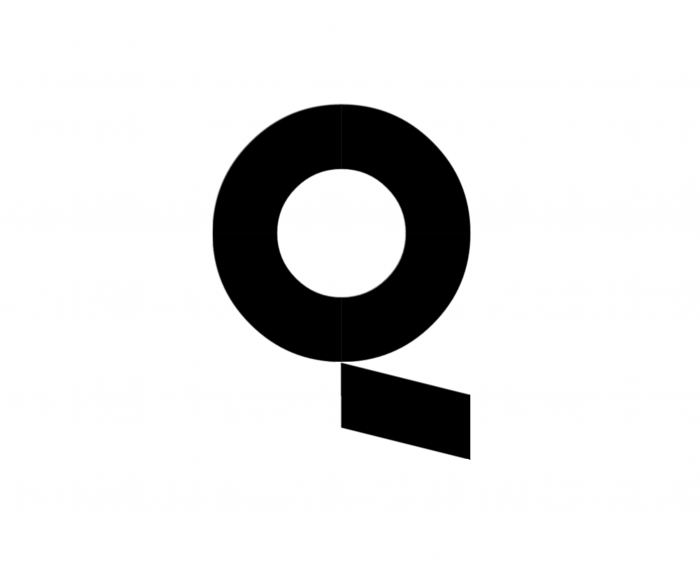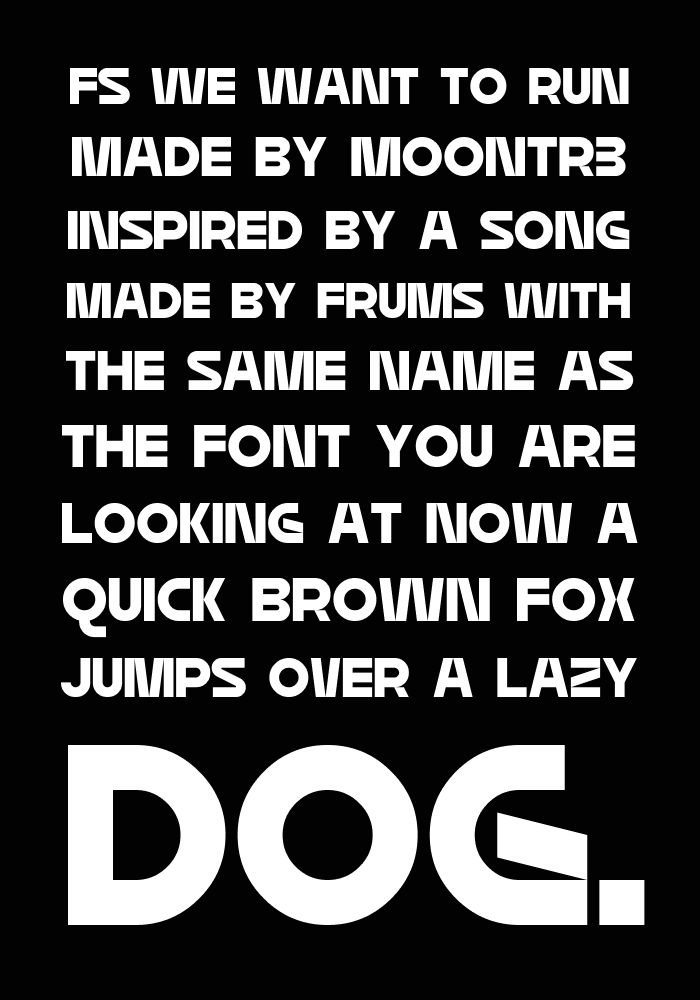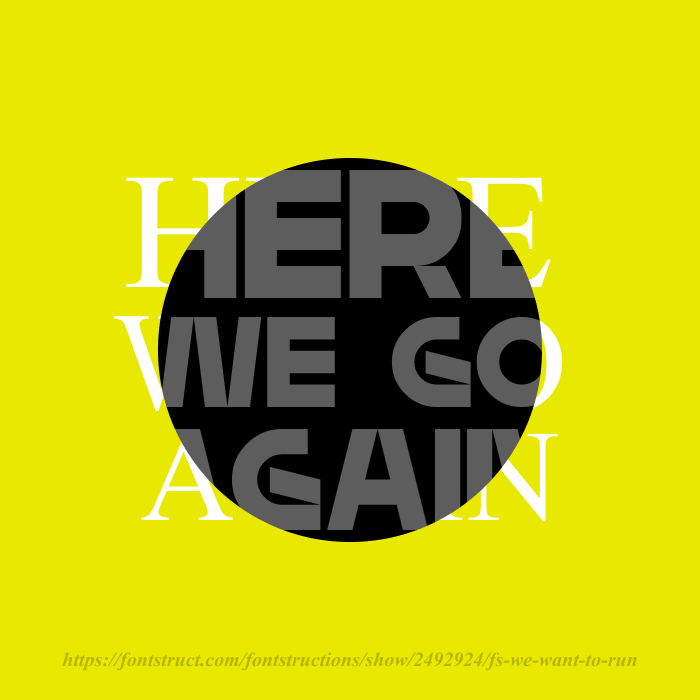
• inspired.... by a frums song with the same name.
too lazy to make punctuation and these other symbols, though they are planned in the future.
Congratulations! FontStruct Staff have deemed your FontStruction worthy of special mention. “FS WE WANT TO RUN” is now a Top Pick.
Congrats on the TP! What do you think about this Q?
I think your Q fits the font style more than the current one, I'll change it. Thanks for the suggestion.
Очень хороший шрифт. Но было бы хорошо поработать ещё над Б и 5, мне кажется, можно сделать более узкий полуовал, как ты их сделал в В.
@Dmitriy Sychiov (Sychoff) немного сложно сделать ровную окружность 2.5x2.5, поэтому я изначально и сделал их с окружностями 3x3.
сейчас попробовал сделать как вы сказали, получилась не сильно ровная окружность, но и вправду выглядит лучше чем прошлые варианты, спасибо за предложение
Nice one! Among other things, I especially admire the seamlessy smooth transition between diagonal and curve on |S| and |2|, extra-especially given such a small grid!
Great design, but without the context of the name being from a song, I find the title oddly hilarious.
Is Very Cool font